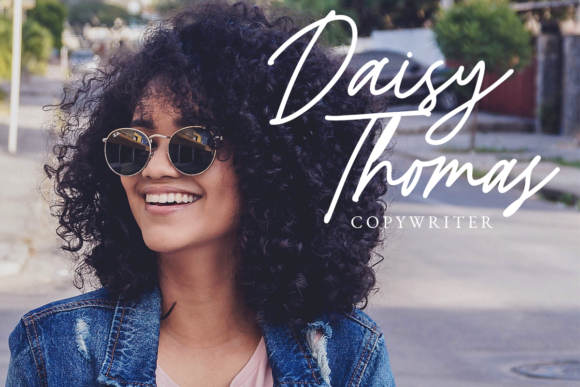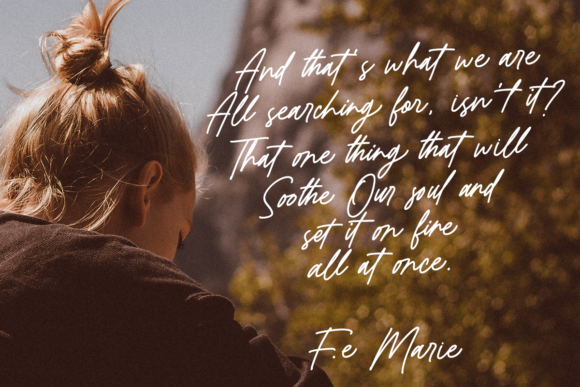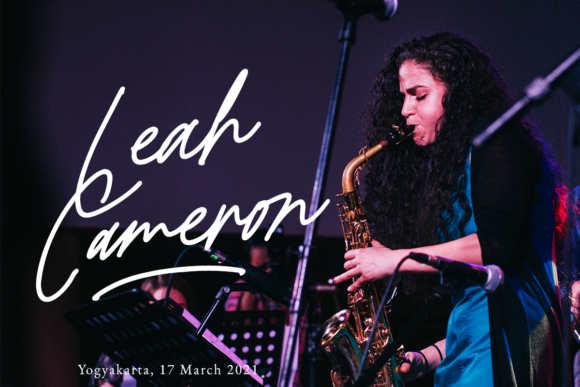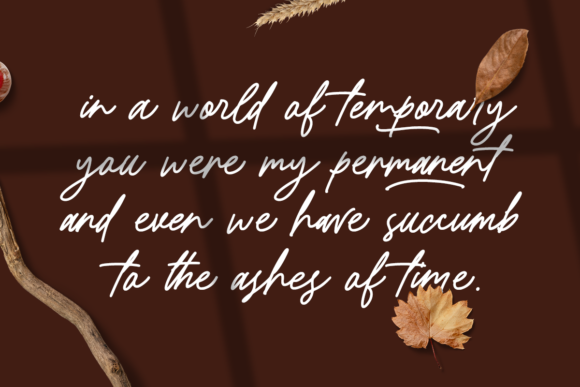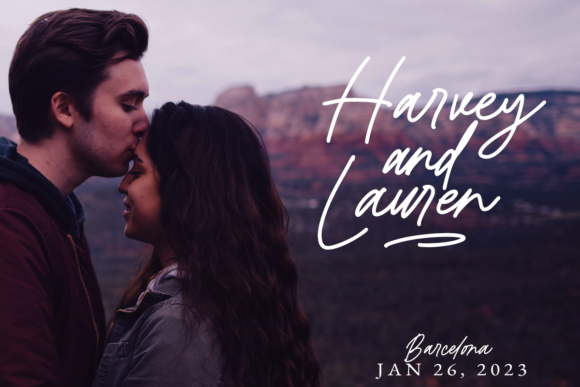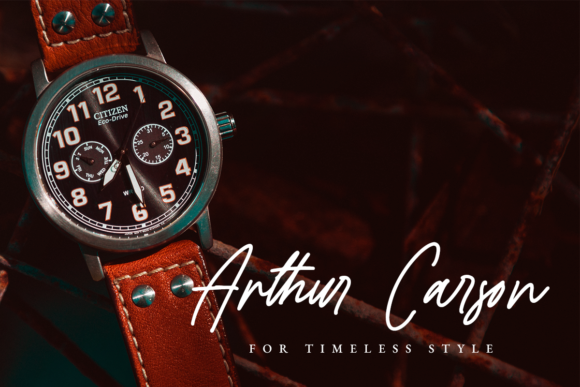
You know that moment when you’re working on a project, and you just can’t seem to find the right font to bring it all together? The words feel flat, the text lacks personality, and you’re left wondering what’s missing. It’s a feeling that’s all too familiar for designers, but it’s also an opportunity to discover something new and exciting.
Enter Bromrose Sands Font, a beautiful script font that’s perfect for adding a touch of whimsy to your designs. With its flowing letters and abundance of ligatures, this font is sure to captivate your audience and make your text stand out. Whether you’re working on a wedding invitation, a branding project, or a social media campaign, Bromrose Sands Font is a valuable addition to any designer’s toolkit.
Bromrose Sands Font Key Features
- Font Family: Bromrose Sands
- Unique Characteristics: This font features a distressed, vintage aesthetic with a mix of serif and script elements, making it suitable for designs that require a unique, nostalgic feel.
- Font Style: Script, Display
Bromrose Sands Font Review
I recently had the chance to work with the Bromrose Sands font, and I must say it’s a unique addition to any design project. Here are my thoughts:
What works well: ✨ The font’s elegant, cursive script is perfect for adding a touch of sophistication to invitations, wedding stationery, or any other high-end design. The letters are connected, giving it a flowing feel that’s easy on the eyes.
- ✨ Great for creative, artistic projects
- ✨ Elegant, high-end feel
- ✨ Easy to read due to connected letters
Limitations: ⚠️ While the font is beautiful, it’s not the most versatile choice. It’s best suited for projects where you want to add a touch of elegance, but it may not be the best fit for body text or large blocks of text.
- ⚠️ Not ideal for body text or large blocks of text
- ⚠️ Limited character set (may not include all special characters)
- ⚠️ May not be suitable for digital use (e.g. screens, websites)
Overall, I’d recommend the Bromrose Sands font for specific projects where you want to add a touch of elegance and sophistication. Just be mindful of its limitations and use it judiciously.
Tips for Getting the Most Out of Bromrose Sands Font
For best results, use Bromrose Sands Font for titles, headings, and emphasis text.
Avoid using it for large blocks of text, as it may be difficult to read.
Experiment with different font sizes and combinations to achieve the desired visual effect.
Bromrose Sands Font is ideal for:
Travel and adventure branding
Food and beverage packaging
Any design project that requires a unique and elegant font.
Alternatives to Bromrose Sands Font
Great Vibes Font is a modern, cursive font that is perfect for designs that need a touch of elegance and sophistication. It is ideal for use in wedding invitations, greeting cards, and other creative projects where a flowing script is desired.
Compared to Bromrose Sands Font, Great Vibes Font has a more polished and refined feel, making it suitable for high-end designs. While Bromrose Sands Font has a more rustic and vintage feel, Great Vibes Font is more contemporary and modern.
Alex Brush Font is a beautiful, handwritten font that is perfect for designs that need a personal and creative touch. It is ideal for use in logos, branding, and other projects where a unique and expressive font is desired.
Compared to Bromrose Sands Font, Alex Brush Font has a more feminine and delicate feel, making it suitable for designs that need a touch of elegance and sophistication. While Bromrose Sands Font has a more rugged and vintage feel, Alex Brush Font is more refined and polished.